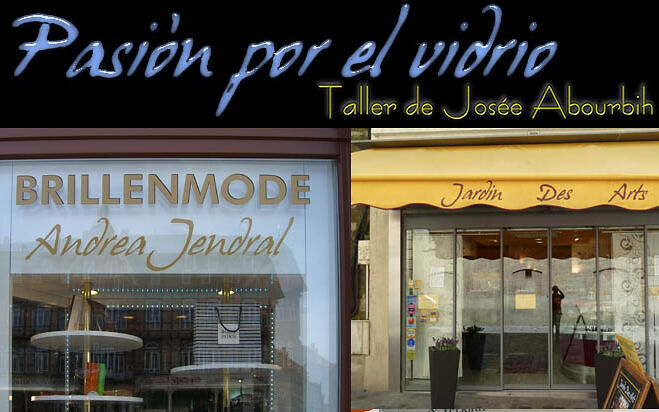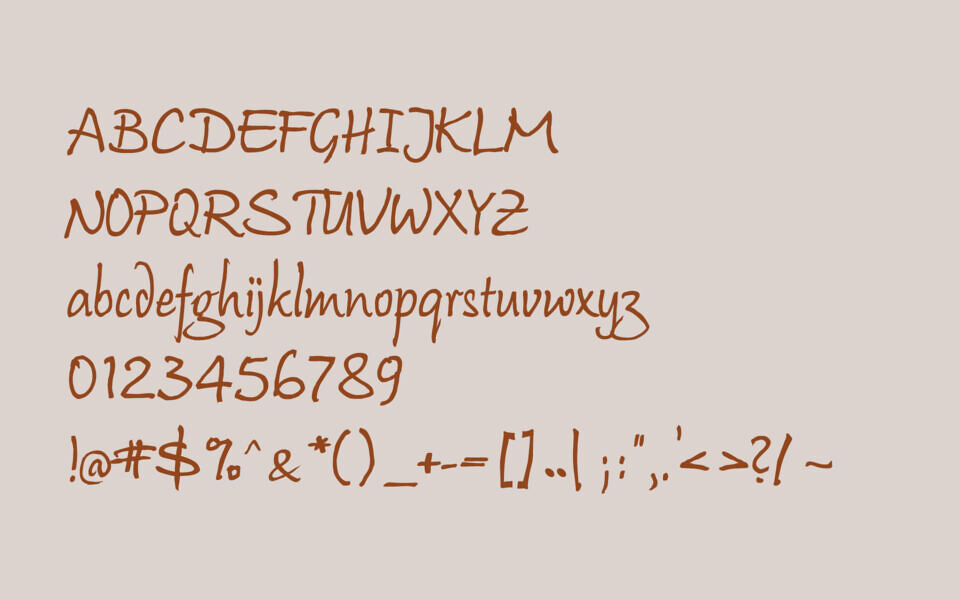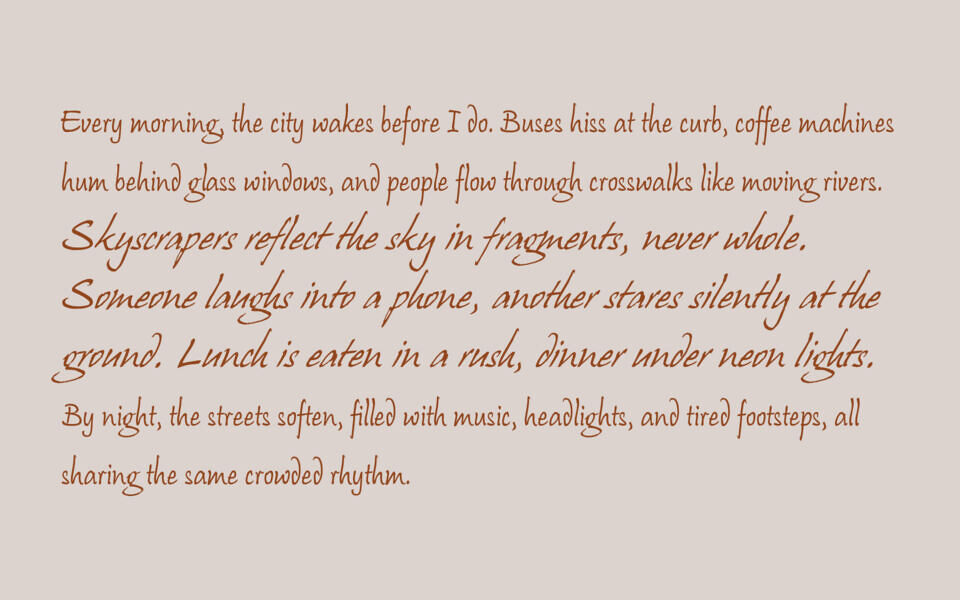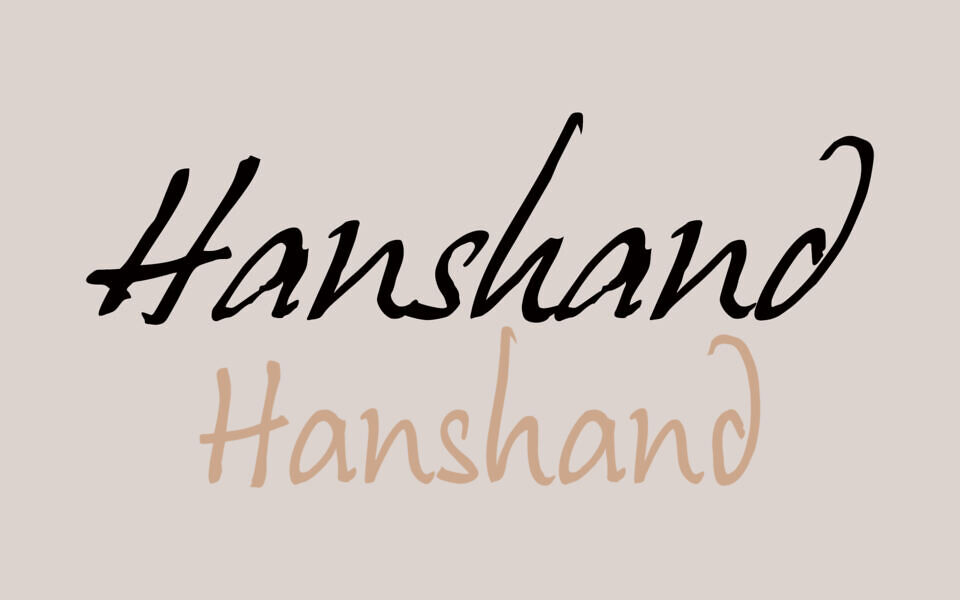
Hanshand Font
Hanshand is a versatile, handwritten script font that blends casual elegance with artistic flair. Characterized by its fluid, rhythmic strokes and organic feel, this typeface mimics authentic brush calligraphy.
Its slightly condensed structure and distinct ligatures make it ideal for storefront signage, artisanal branding, and sophisticated invitations. Whether used for a boutique logo or creative editorial layouts, Hanshand offers a personal, human touch.
Designed by: Hans J. Zinken